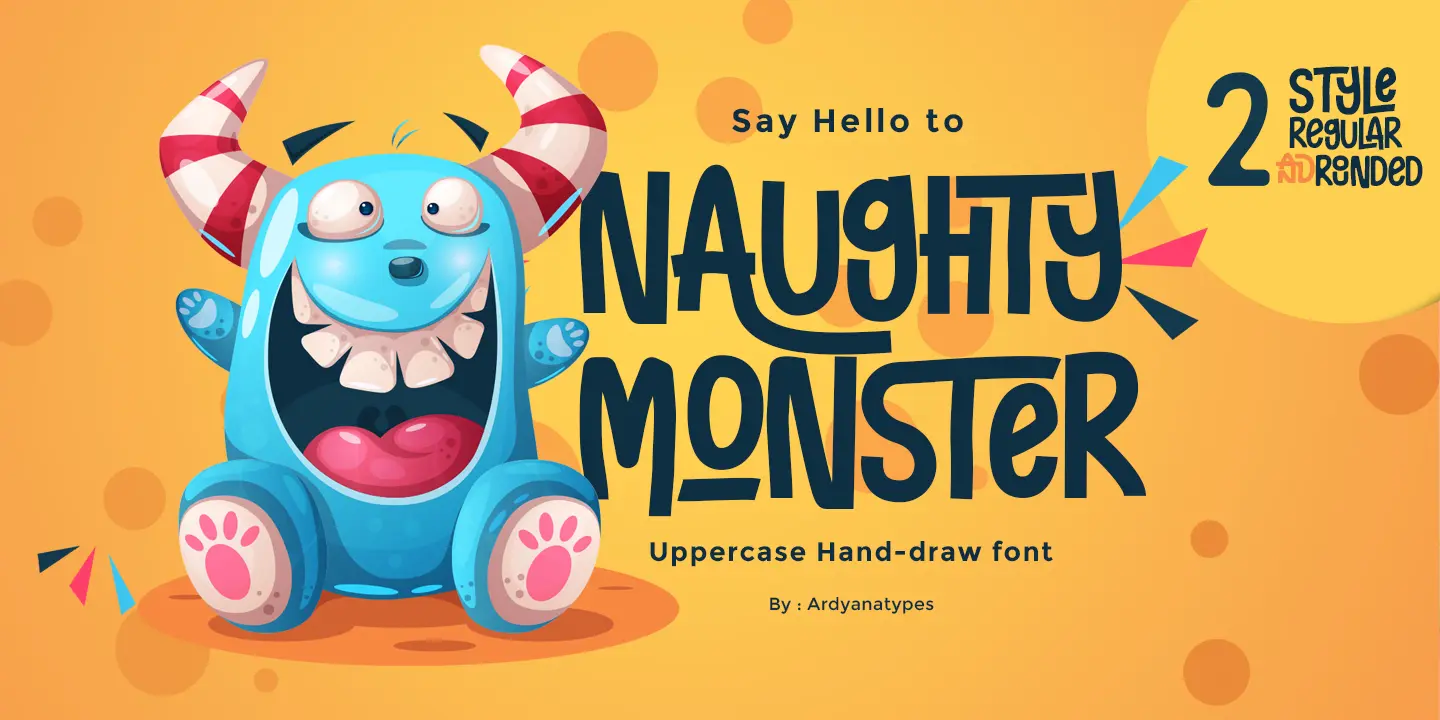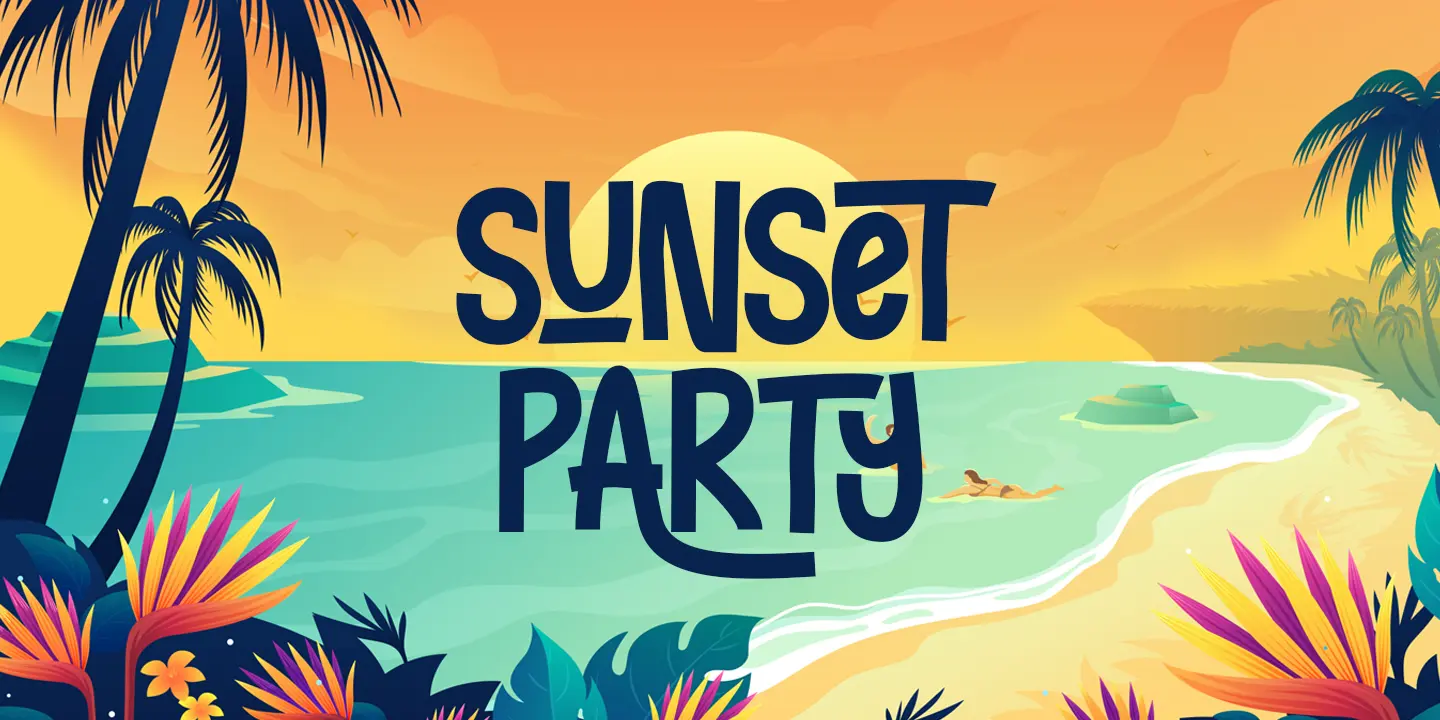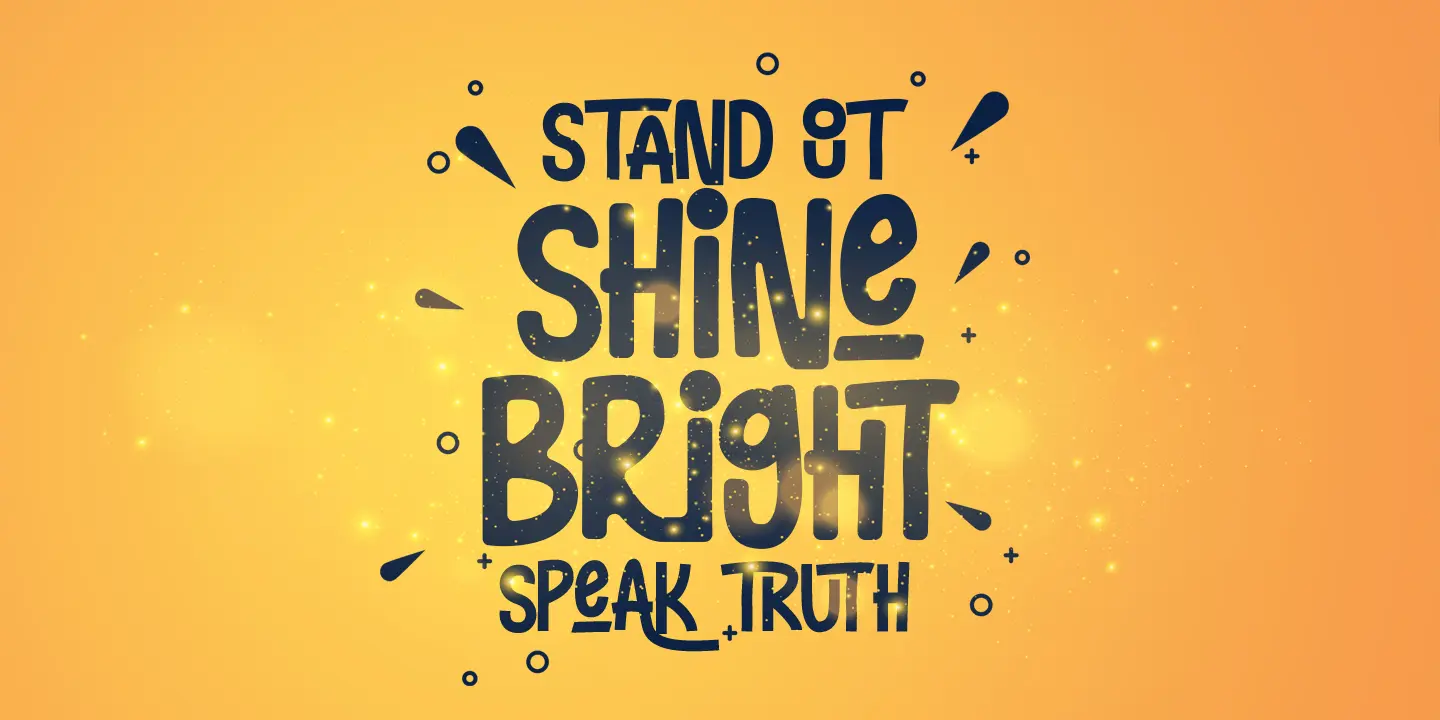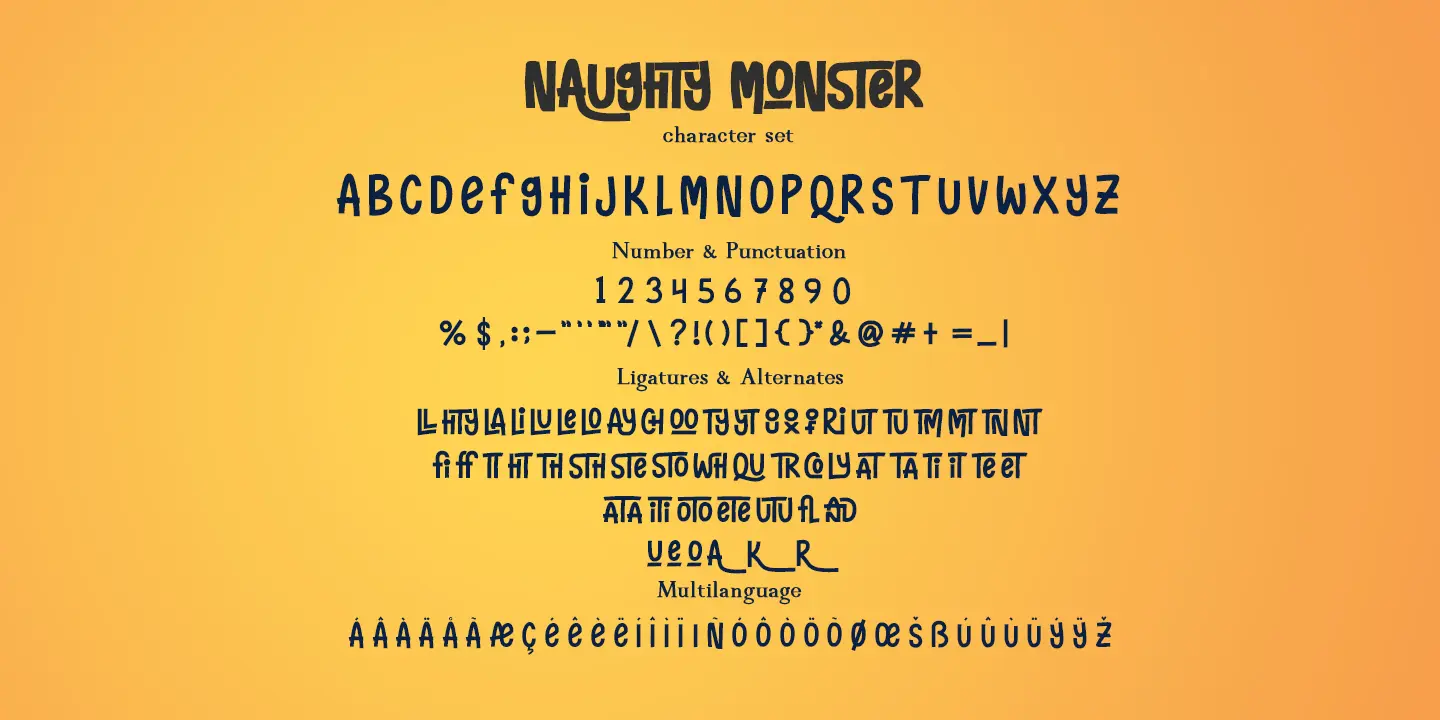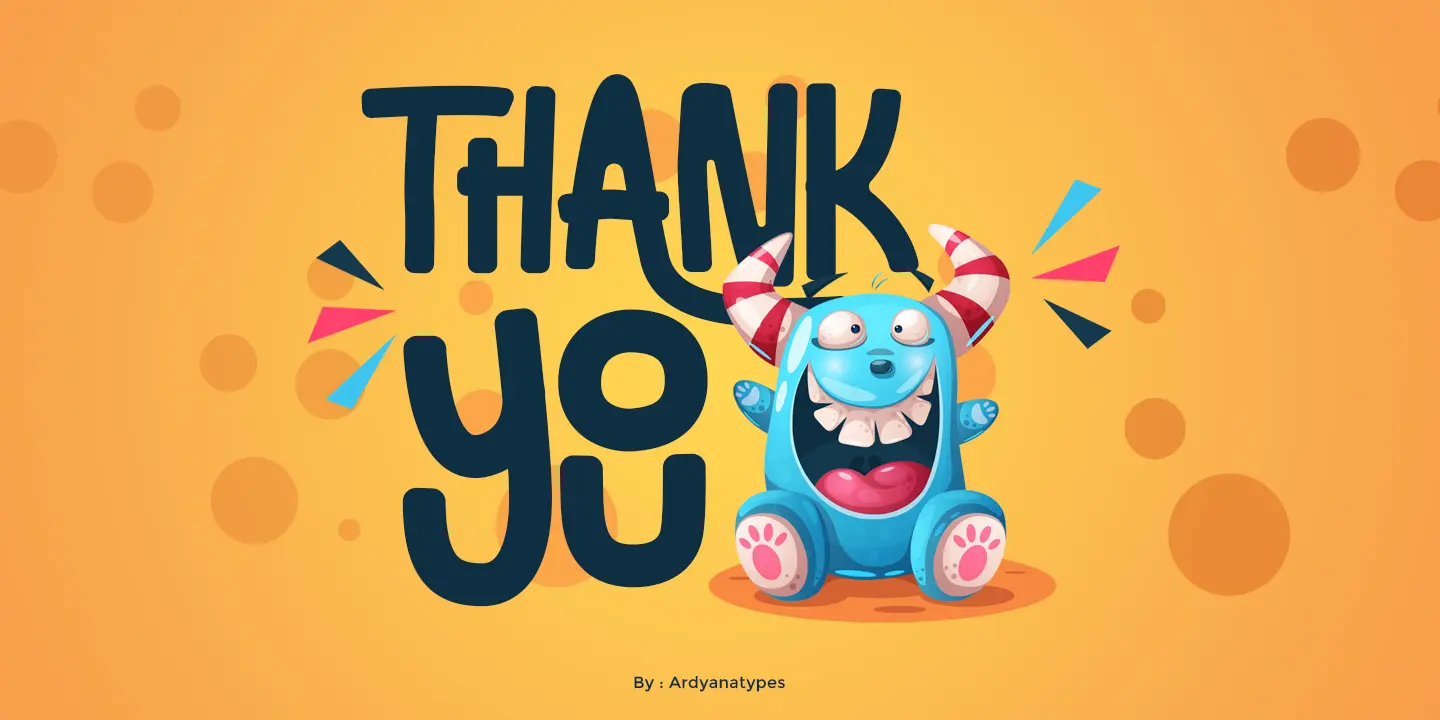
Naughty Monster
2 Styles
Say hello to Naughty Monster, Naughty Monster is a hand made font that has many interrelated characters. Naughty Monster has an opentype feature that will automatically change each character into ligatures. so it becomes a unique character. Naughty Monster has 2 different styles including regular and rounded. This is made to give a choice of each style. Naughty Monster has a strict style, but still gives a cheerful impression, making it very easy to read and apply in all design projects such as poster designs, clothing, logos, quotes, album covers, books, business cards, product designs, and many more design projects. Naughty Monster has its own charm when used. We make this font look funny, easy to remember, and easy to use.
• AT AT
• At At
• AY AY
• Ay Ay
• CO CO
• Co Co
• CH CH
• Ch Ch
• ET ET
• Et Et
• FF FF
• Ff Ff
• FI FI
• Fi Fi
• FL FL
• Fl Fl
• HT HT
• Ht Ht
• IT IT
• It It
• LY LY
• Ly Ly
• LO LO
• Lo Lo
• LU LU
• Lu Lu
• LE LE
• Le Le
• Ll Ll
• LL LL
• La La
• LA LA
• Li Li
• LI LI
• MT MT
• Mt Mt
• NT NT
• Nt Nt
• OT OT
• OO OO
• Oo Oo
• Ot Ot
• OX OX
• Ox Ox
• OU OU
• Ou Ou
• OF OF
• Of Of
• Qu Qu
• QU QU
• RI RI
• Ri Ri
• TT TT
• Tt Tt
• TH TH
• Tn Tn
• TM TM
• Tm Tm
• TU TU
• Tu Tu
• TR TR
• Tr Tr
• TA TA
• Ta Ta
• TO TO
• To To
• Th Th
• TE TE
• Te Te
• TY TY
• Ty Ty
• TI TI
• Ti Ti
• TN TN
• UT UT
• Ut Ut
• WH WH
• Wh Wh
• YT YT
• Yt Yt
• at at
• aT aT
• ay ay
• aY aY
• co co
• cO cO
• ch ch
• cH cH
• et et
• eT eT
• fF fF
• fI fI
• fL fL
• fl fl
• ht ht
• hT hT
• it it
• iT iT
• lL lL
• ly ly
• lY lY
• lo lo
• lO lO
• lu lu
• lU lU
• le le
• lE lE
• lA lA
• la la
• lI lI
• li li
• mt mt
• mT mT
• nt nt
• nT nT
• oo oo
• oO oO
• ot ot
• oT oT
• ox ox
• oX oX
• ou ou
• oU oU
• of of
• oF oF
• qu qu
• qU qU
• ri ri
• rI rI
• th th
• tH tH
• tT tT
• tn tn
• tN tN
• tm tm
• tM tM
• tu tu
• tU tU
• tr tr
• tR tR
• ta ta
• tA tA
• to to
• tO tO
• te te
• tE tE
• ty ty
• tY tY
• ti ti
• tI tI
• ut ut
• uT uT
• wh wh
• wH wH
• yt yt
• yT yT
• Ata Ata
• ATa ATa
• AtA AtA
• And And
• AND AND
• AnD AnD
• ANd ANd
• ATA ATA
• Ete Ete
• ETE ETE
• EtE EtE
• ETe ETe
• Hty Hty
• HTY HTY
• HTy HTy
• Iti Iti
• ITI ITI
• ITi ITi
• ItI ItI
• Oto Oto
• OTO OTO
• OtO OtO
• OTo OTo
• StH StH
• Ste Ste
• STe STe
• STE STE
• Sto Sto
• STO STO
• StO StO
• STo STo
• Stu Stu
• STU STU
• StU StU
• STu STu
• Sth Sth
• STh STh
• STH STH
• StE StE
• Utu Utu
• UTU UTU
• UtU UtU
• UTu UTu
• ata ata
• aTa aTa
• atA atA
• aTA aTA
• and and
• aNd aNd
• anD anD
• aND aND
• ete ete
• etE etE
• eTE eTE
• hty hty
• hTy hTy
• htY htY
• hTY hTY
• iti iti
• iTi iTi
• itI itI
• iTI iTI
• oto oto
• oTo oTo
• otO otO
• oTO oTO
• sTh sTh
• sTH sTH
• stH stH
• ste ste
• sTE sTE
• stE stE
• sTe sTe
• sto sto
• sTo sTo
• stO stO
• sTO sTO
• stu stu
• sTu sTu
• stU stU
• sTU sTU
• sth sth
• utu utu
• uTu uTu
• utU utU
• uTU uTU